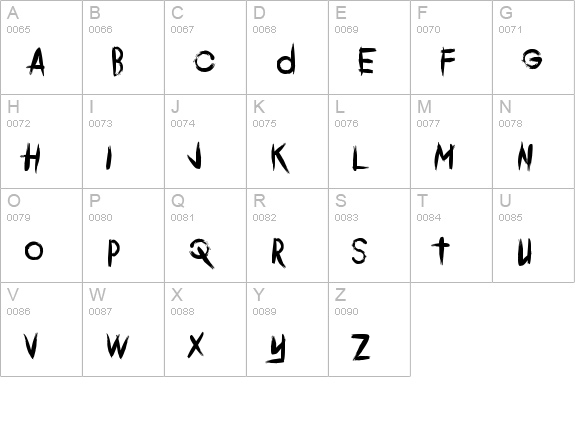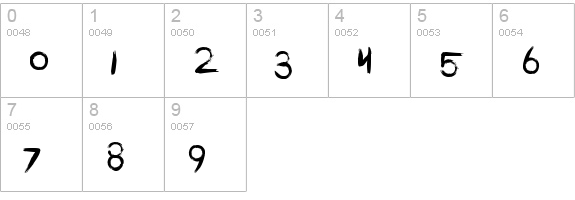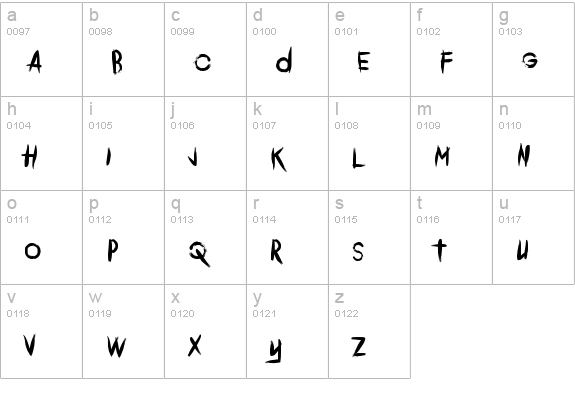
Comeback Of The Damned Font Details
Comeback Of The Damned font is a hauntingly beautiful typeface that exudes a sense of mystery and intrigue. Its sharp edges and intricate details create a bold and impactful look that is perfect for adding a touch of drama to your designs. This font is inspired by the eerie elegance of the supernatural world, making it ideal for projects that require a touch of darkness and sophistication. Featuring a unique combination of gothic elements and modern design, Comeback Of The Damned font is sure to make a strong impression. Whether you're working on a poster, book cover, or branding project, this font will help you stand out from the crowd and leave a lasting impact on your audience. The best part? Comeback Of The Damned font is available for free download at FontsMarket.com. So go ahead and unleash your creativity with this striking typeface that will bring a touch of the supernatural to your designs.